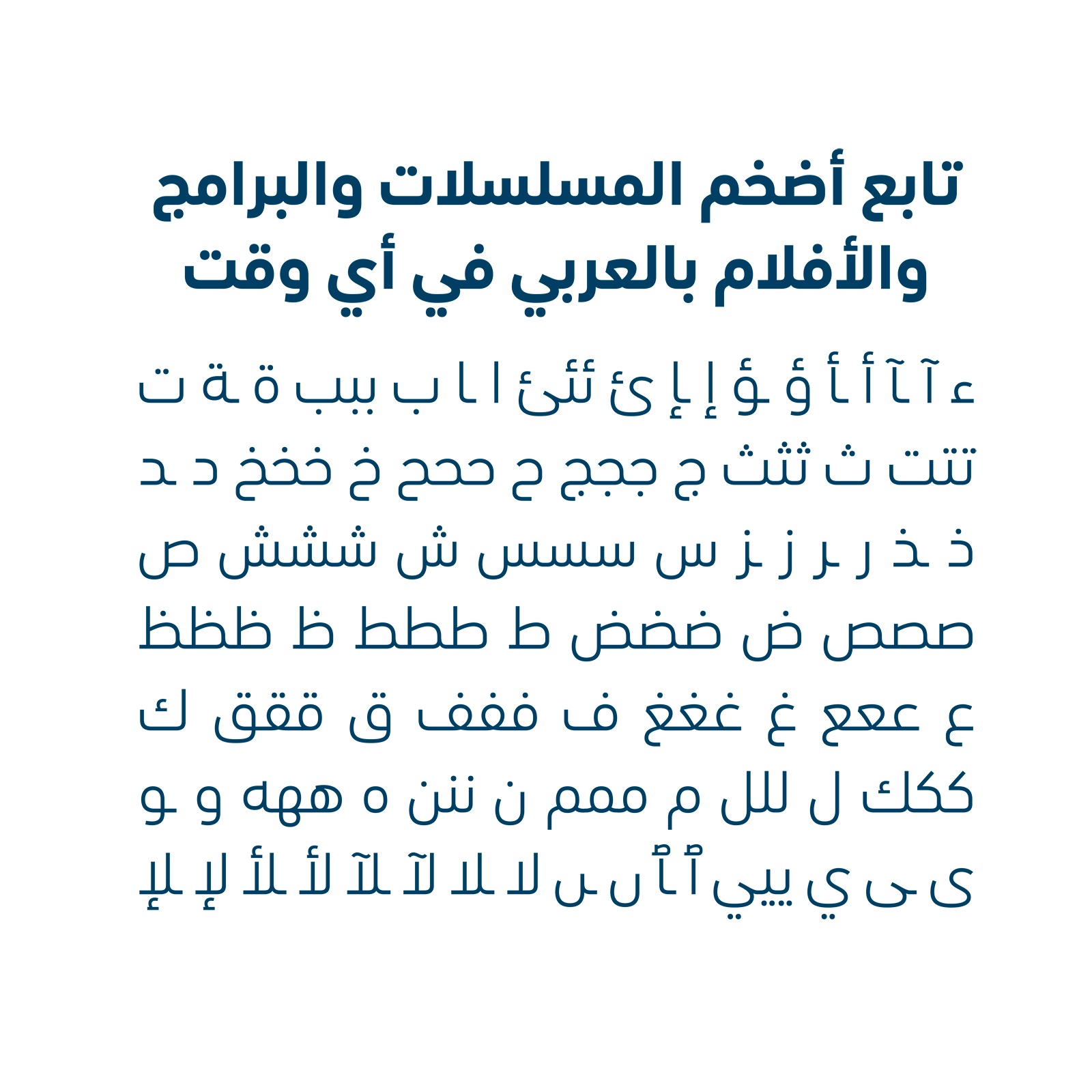
Q&A Nadine Chahine
Dr. Nadine Chahine is an award-winning Lebanese type designer. She is the CEO at I Love Typography Ltd and the principal at ArabicType Ltd. She has an MA in Typeface Design from the University of Reading, UK, a PhD from Leiden University, The Netherlands, and a Master of Studies in International Relations from Cambridge University. She designed: Frutiger Arabic, Neue Helvetica Arabic, Univers Next Arabic, Palatino Arabic, Avenir Arabic, Amareddine, Makdessi, and Koufiya. She has won numerous awards for her typefaces.
You have naturally been specialized in Arabic scripts and the desired harmonious alliance with the Latin alphabet. But you have also focused your legibility research on others scripts. How it impacted your way to design typefaces?
Nadine Chahine My PhD research was focused on the effect of word complexity in Arabic on legibility. As part of that, I did extensive research on legibility in general, and eye movement in particular. Almost all the studies I came across were carried out for the Latin script, so I ended up picking up expertise within that area too. This turned out to be quite helpful as I collaborated with the MIT AgeLab on numerals studies in the years after my graduation. Legibility research has impacted how I design for sure, though I have also learned along the way to appreciate the highly complex forms that are not so highly legible, but are so beautifully drawn.
“I learned to appreciate the highly complex forms that are not so highly legible, but are so beautifully drawn.”
— Nadine Chahine
How was the experience of working with Hermann Zapf and Adrian Frutiger? What made you change your mind and feeling ready to work on Zapfino Arabic?
It was a great privilege and one of the main reasons why I had wanted to join Linotype in the first place. I worked more closely with Prof Zapf and spent many hours drawing together, designing 3 typefaces families in total. He and I shared the same birthday and over the span of the 10 years we were acquainted, I learned how to draw like he does, and he trusted me with his designs. This is one of the biggest honours I have ever received. It means a lot, when Herman Zapf sends me fax say: I trust you, Nadine.
I worked more closely with Prof Zapf and spent many hours drawing together, designing 3 typefaces families in total.
Could you tell us how to adapt to your script a Geometric Sans to be different from a Humanist Sans, Grotesk Sans?
It’s definitely a structural problem and is mostly reflected in the shape of loops. Arabic has structures that are quite different from Latin so when we try to echo those, we need to look at the logic of formation and the nature of the curves within the structures, and then try to bring that into Arabic.
“Arabic has structures that are quite different from Latin […] we need to look at the logic of formation and the nature of the curves.”
— Nadine Chahine
Do you prefer a permanent/dedicated workspace, or do you like to keep mobile?
I like to work from home and to wear very comfy things. I also like to design late in the evenings. So my ideal space is close to my kitchen so I can get snacks, and somewhere I can relax and play loud music without interruptions. For many years I had to design at the office during the typical office hours and it never felt 100% comfortable.
“Every typeface had its own song.”
— Nadine Chahine
I like to listen to Arabic music when I draw, the louder the better. Recently, I’ve been exploring the design of typefaces inspired by human emotions and in those projects, every typeface had its own song and I would listen to it on repeat.